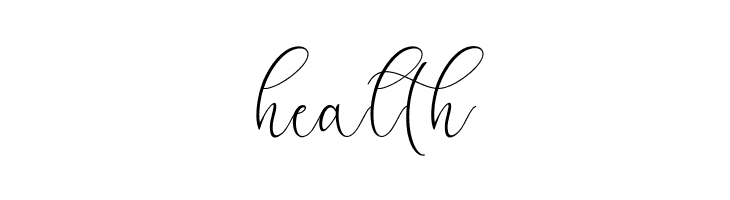
An elegant and flowing script font with sophisticated cursive style.
A stylish and elegant script font with fluid, cursive letterforms.
An elegant script font with flowing, cursive letters and a classic style.
An elegant script font with flowing, cursive letterforms and delicate swashes.
An elegant script font with flowing, cursive letterforms and a sophisticated appeal.
An elegant script font with flowing, cursive letters and sophisticated style.
An elegant script font with flowing, high-contrast strokes and ornate flourishes.
A graceful and elegant script font with flowing, cursive letterforms.
An elegant script font with flowing swashes and a sophisticated style.
An elegant script font with flowing, cursive letterforms and sophisticated swashes.